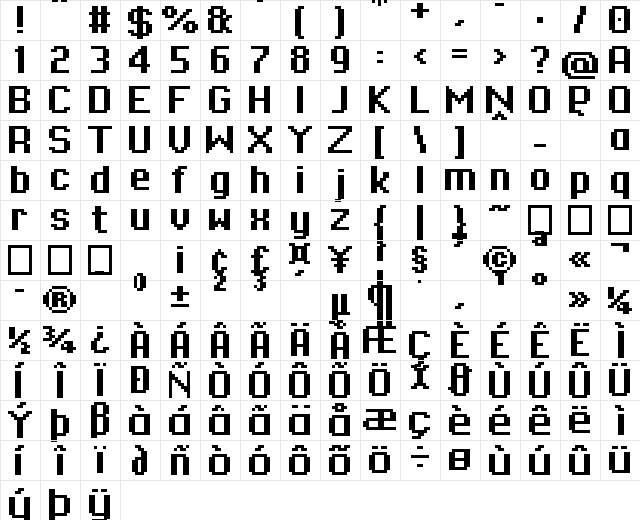
01Systematix9 Bold
Design Context for 01Systematix9 Typeface
01Systematix9 takes a measured approach to typography — its balanced proportions and neutral character make it a reliable workhorse for both digital and print work. The heavy weight commands attention and anchors typographic hierarchies.